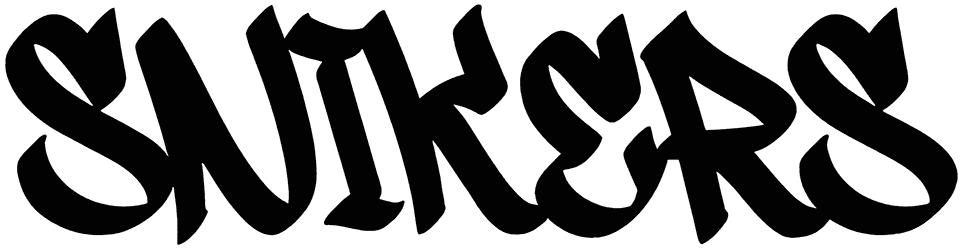
Snikers Font
If you’re looking for a way to bring more youth energy to your lettering, your timing couldn’t have been better. That can be easily arranged if you just let Snikers reshape your words and make them sound inspired.
Isn’t it much better to let your text get wild with this graffiti font so that you can get anyone to notice you? There’s no lowercase in this slanted font, but it still works just fine on your T-shirts, backpacks, mugs, and posters.